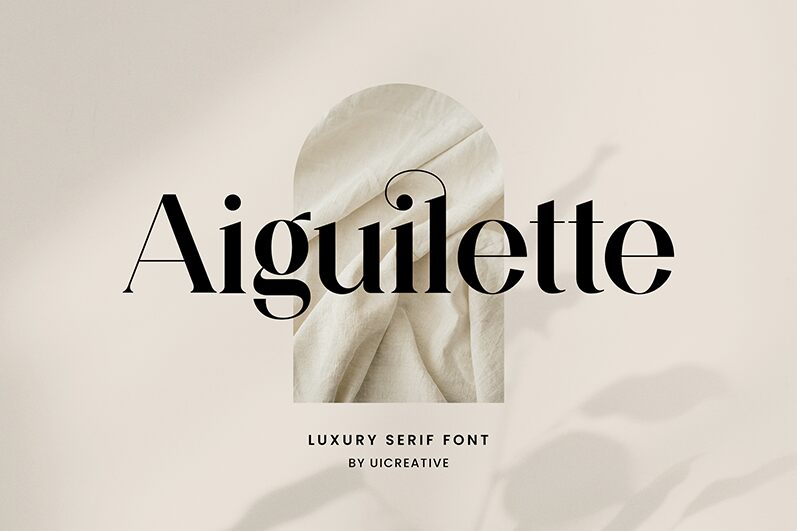
Aiguilette
Aiguilette, a captivating serif font crafted by UI Creative, exudes a timeless elegance that captivates the eye. With its refined curves and impeccable balance, this typeface emanates a sense of refined sophistication, making it an ideal choice for editorial designs, high-end branding, and sophisticated print materials. The font's striking features, including its distinctive serifs and delicate stroke variations, lend a touch of understated luxury to any project, effortlessly conveying a sense of quality and craftsmanship.
Aiguilette's versatility shines through, making it a versatile option for a wide range of applications. From elegant book covers to chic marketing collateral, this font seamlessly adapts to various design contexts, lending an air of refined elegance and timeless appeal to each project. Its legibility and readability make it a compelling choice for both display and body text, ensuring a cohesive and visually captivating design experience.